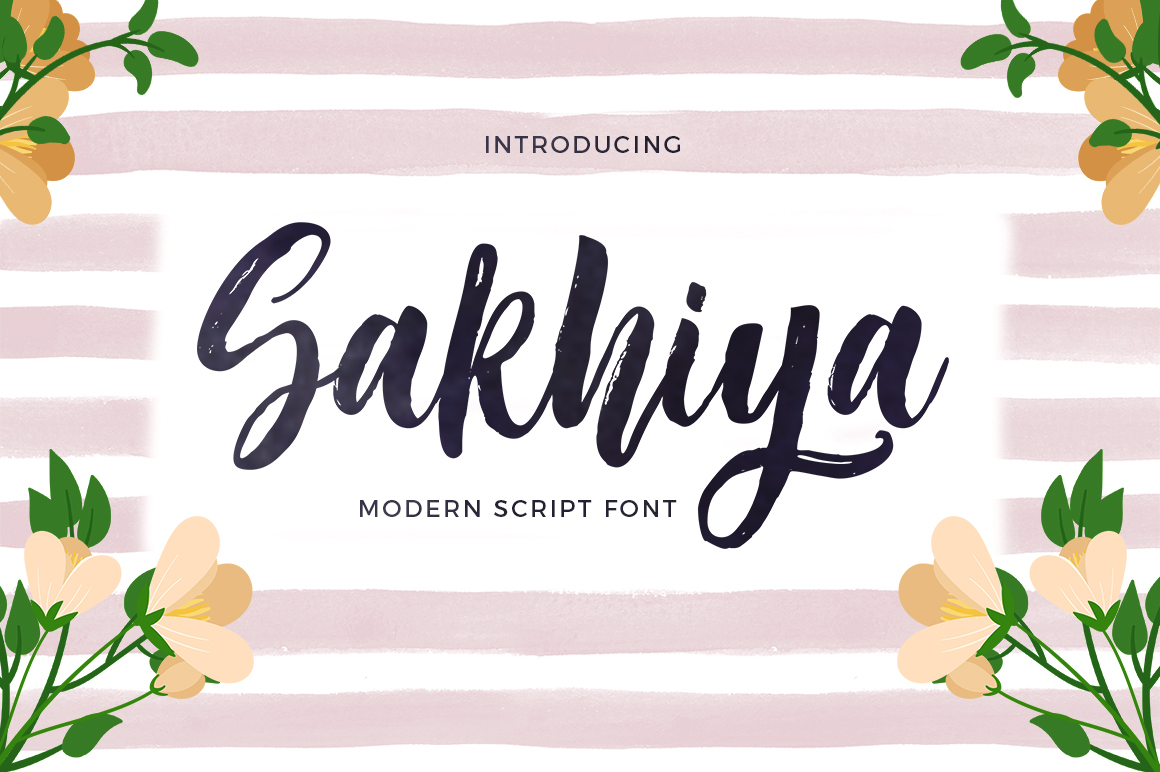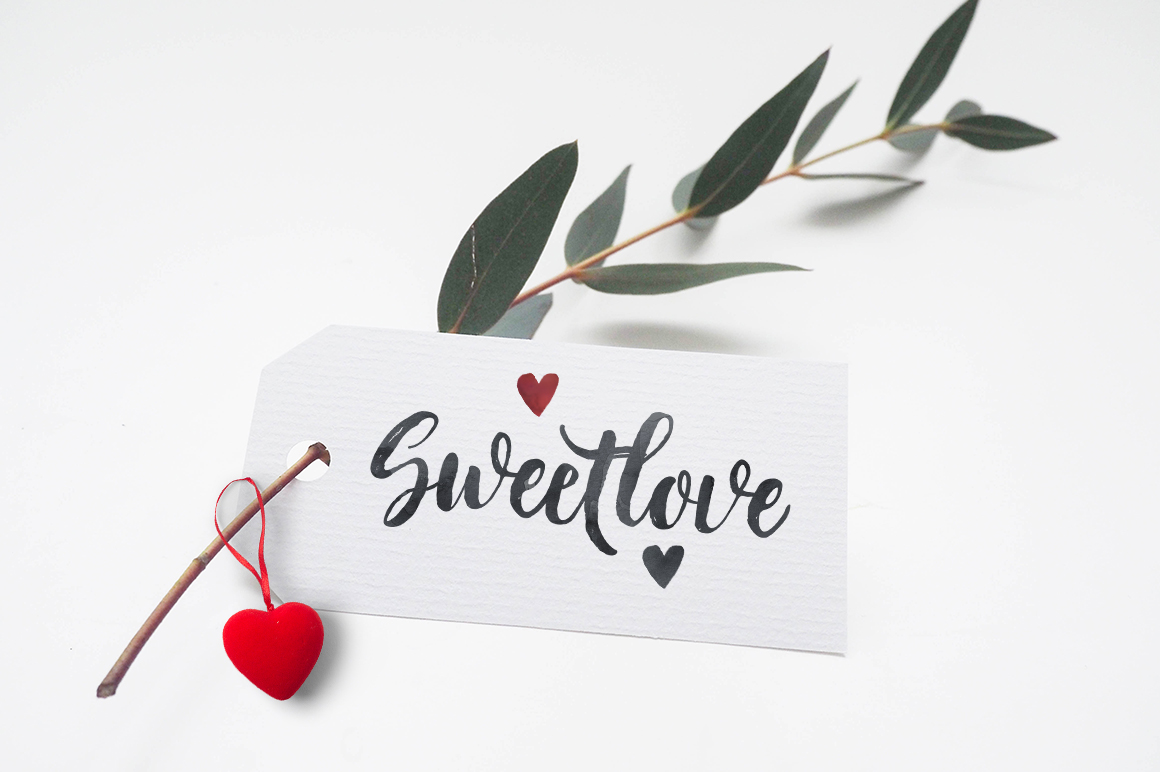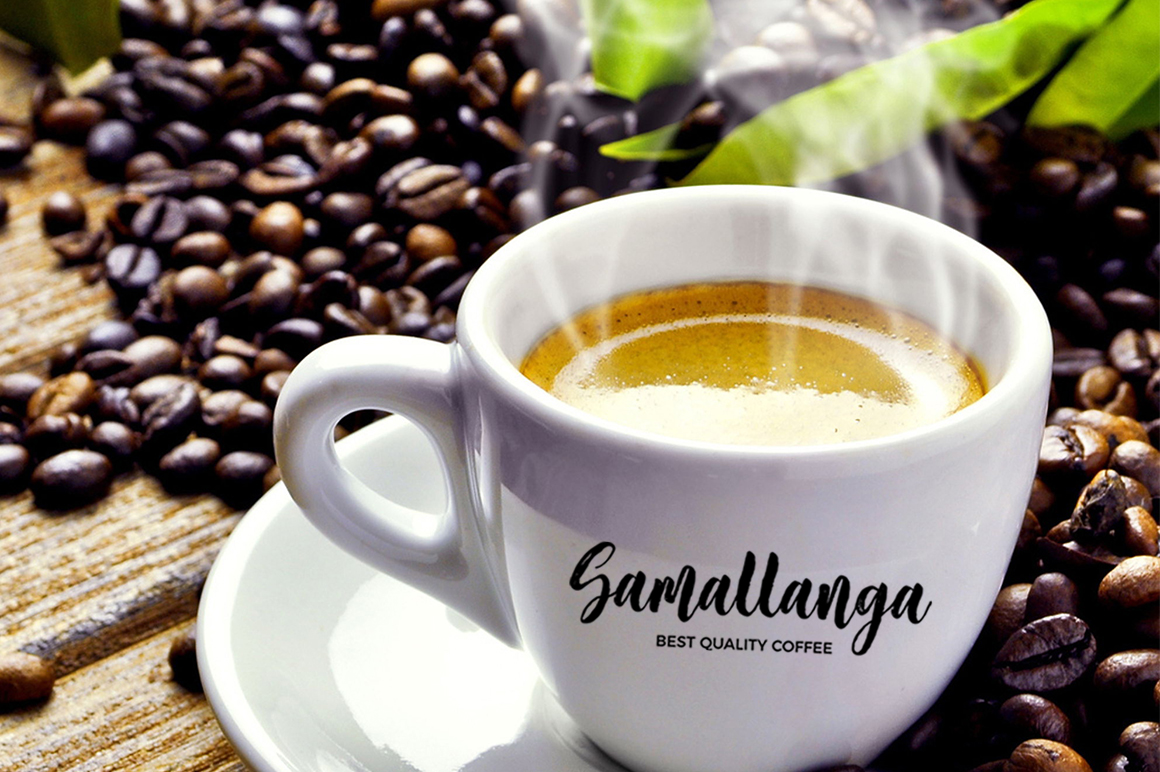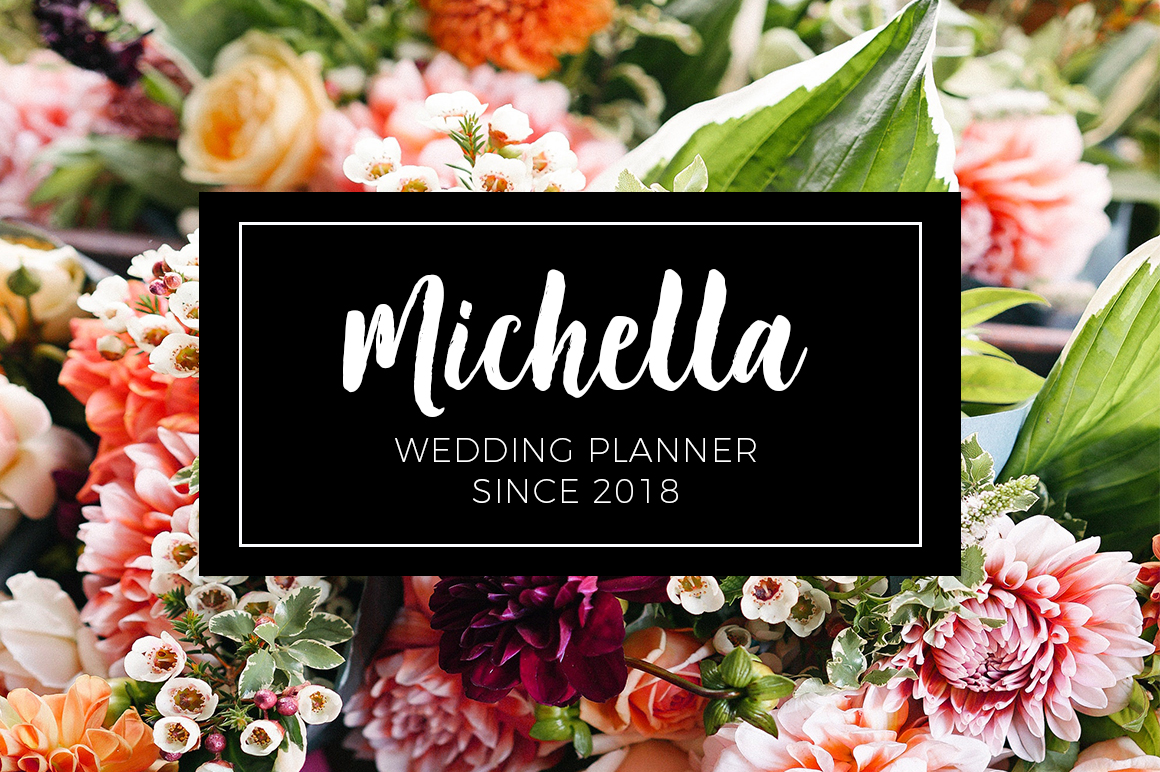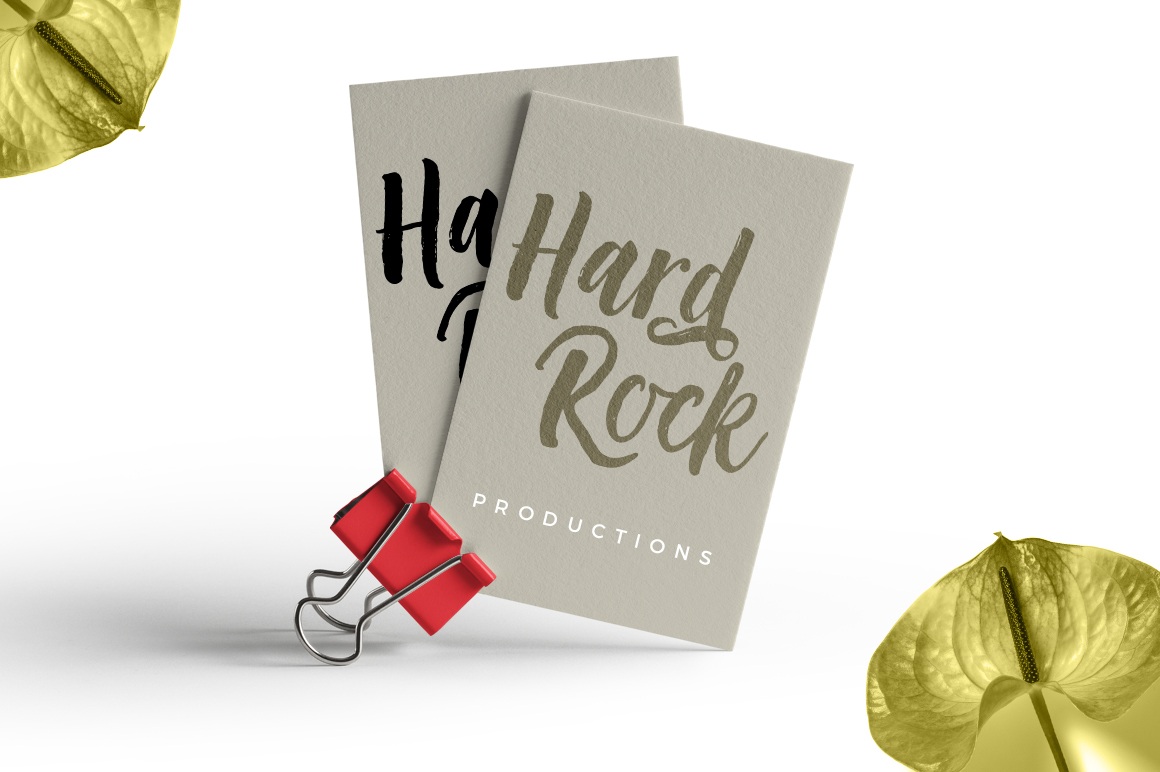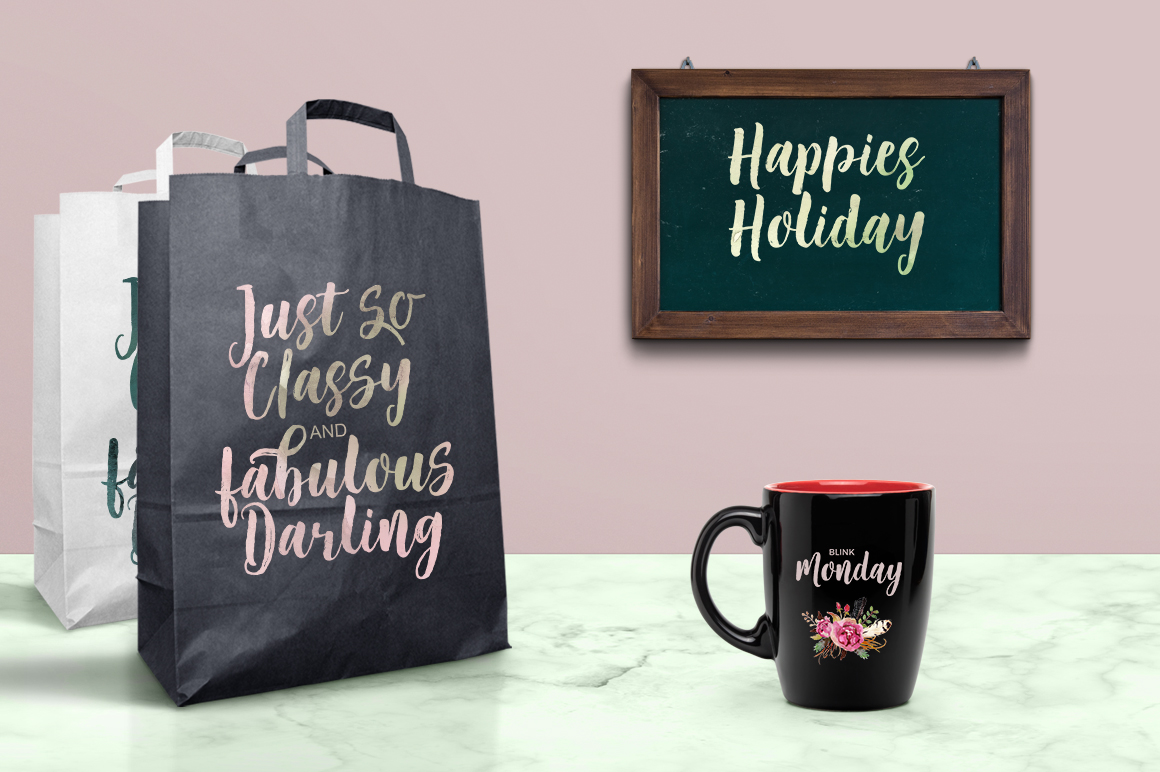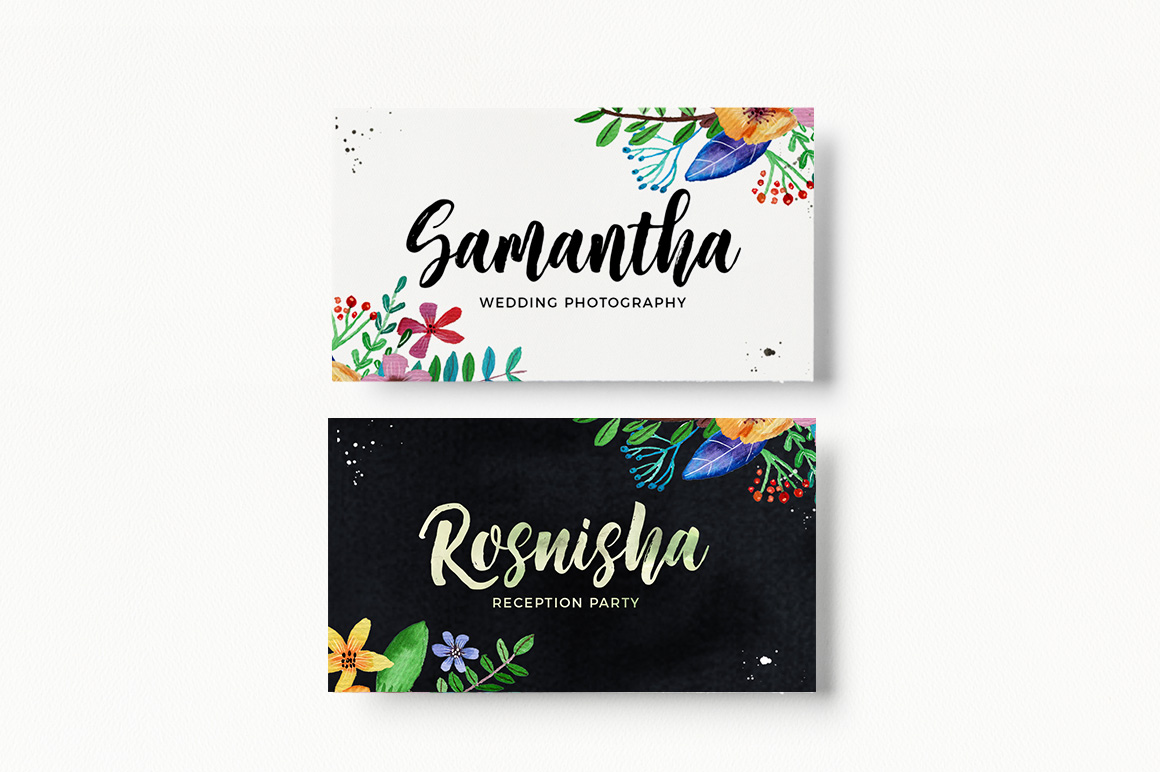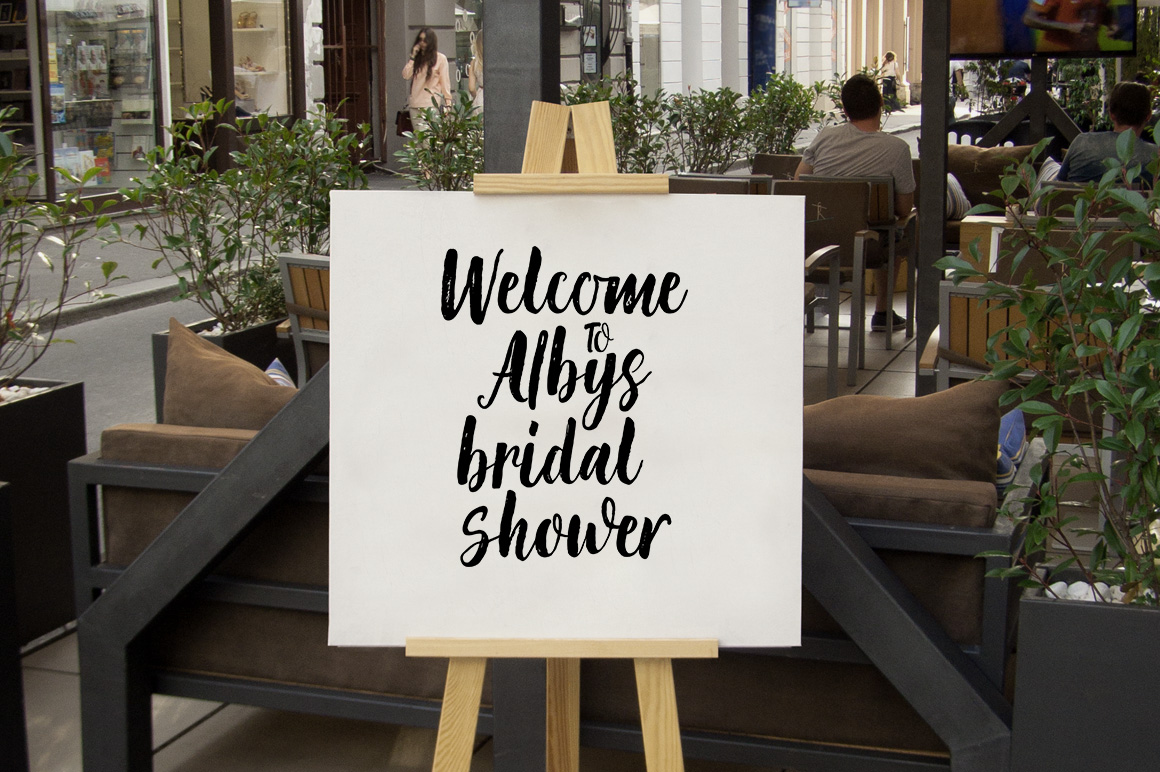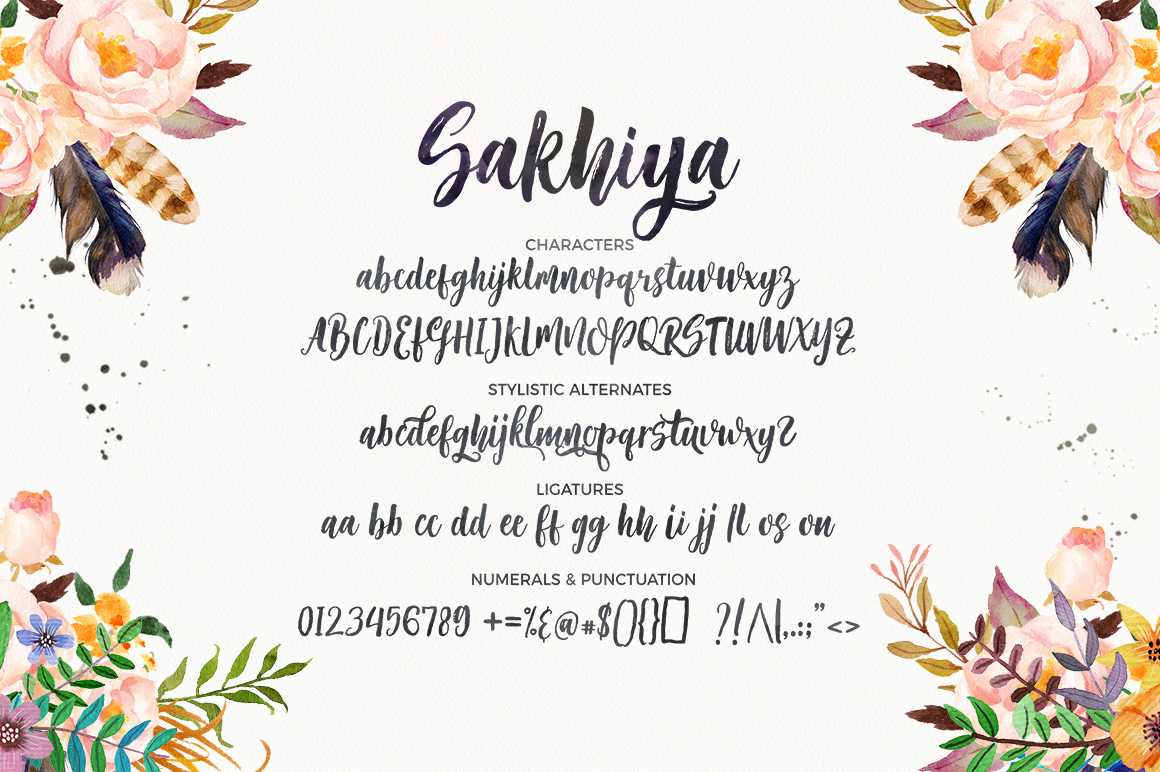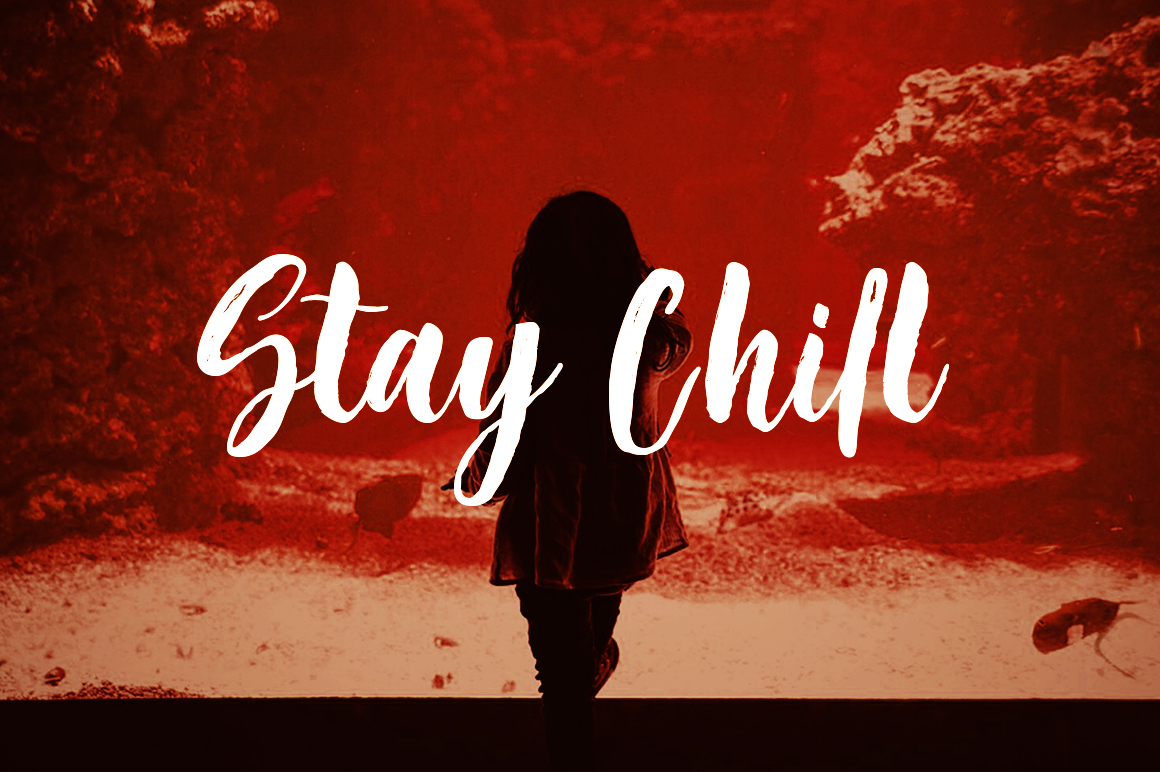
Sakhiya Font
About Sakhiya Font
Sakhiya Script is a handwritten script that is inspired by free-flowing signatures. This font has a friendly, organic feel to it. It’s painted completely by hand and digitally perfected.